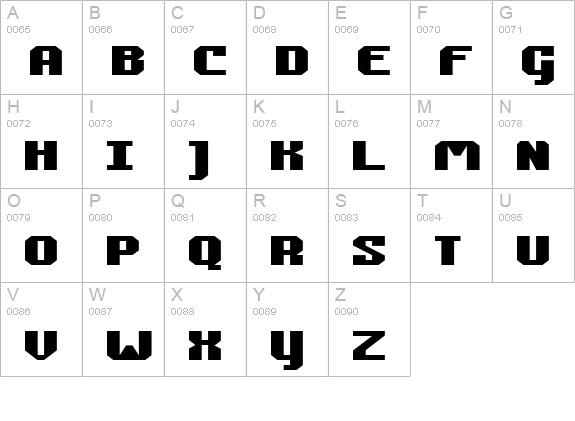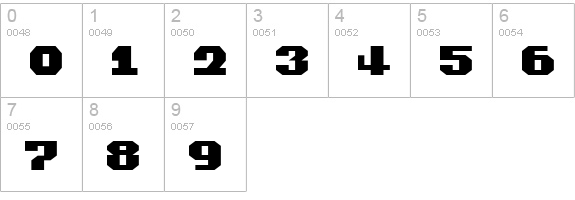
Commonwealth Expanded is a distinctive, extended-width variant in the Commonwealth typeface family \xE2\x80\x94 well suited to design and typography projects.
Commonwealth Expanded is a contemporary and versatile typeface that combines classic elegance with a modern twist. With its clean lines and elongated letterforms, this font exudes sophistication and style. Perfect for both print and digital media, Commonwealth Expanded is ideal for a wide range of design projects, from branding to editorial layouts. What sets Commonwealth Expanded apart is its unique mix of tradition and innovation. The font's expanded width gives it a distinctive presence on the page, making it perfect for headlines and titles that demand attention. Its extensive character set ensures support for multiple languages and a variety of typographic needs. Best of all, Commonwealth Expanded is free to download at FontsMarket.com. Whether you're a designer looking to add a touch of sophistication to your work or a typographer in search of a versatile new typeface, Commonwealth Expanded has you covered. Download it today and elevate your designs with this stunning and freely available font.